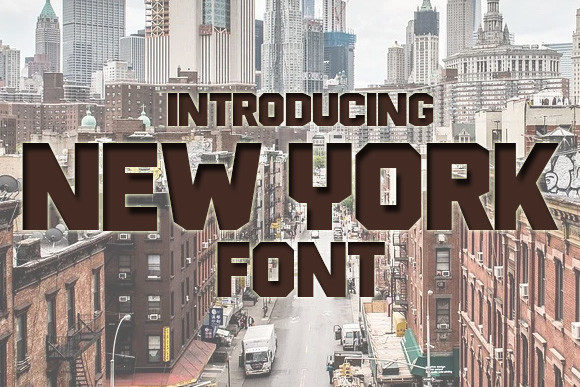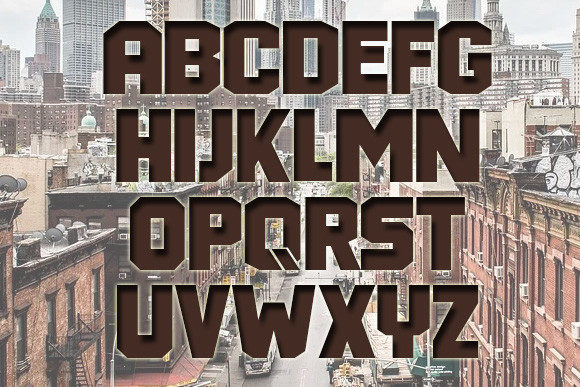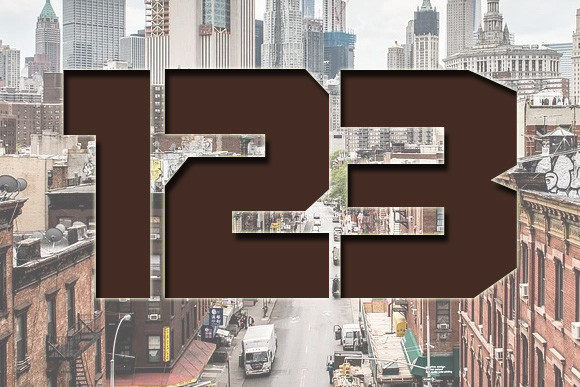
New York Font
About the New York Font
Explore the possibilities with New York Font, a font that offers both beauty and functionality. New York is a superb and clean display font. It will look stunning on any food menu, poster, flyer, print, and much more! Use this font for your designs and explore its endless possibilities.
New York’s strong, geometric forms make it ideal for headlines, logos, and short-form text in branding materials and posters. Its clean lines also lend themselves well to packaging design, particularly for products emphasizing a modern or sophisticated aesthetic. However, its bolder weight and lack of x-height variations make it less suitable for body text or UI elements requiring high readability in smaller sizes.
Pairing New York with a complementary sans-serif like Open Sans for body copy provides a balanced contrast: Open Sans’s neutrality offsets New York’s boldness. For a more refined look, consider pairing it with a classic serif like Garamond for secondary text or a subtle script font like Lora for added elegance, depending on the project’s tone.
The New York font projects a confident, modern personality, best suited for brands aiming for a clean, impactful visual identity. Its versatility allows adaptation to various applications, but maintaining a conscious balance with supporting typefaces is key to maximizing its impact.
New York Font Example